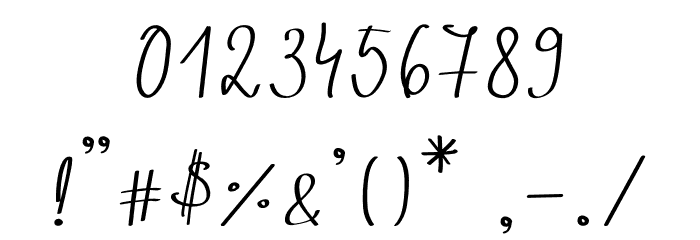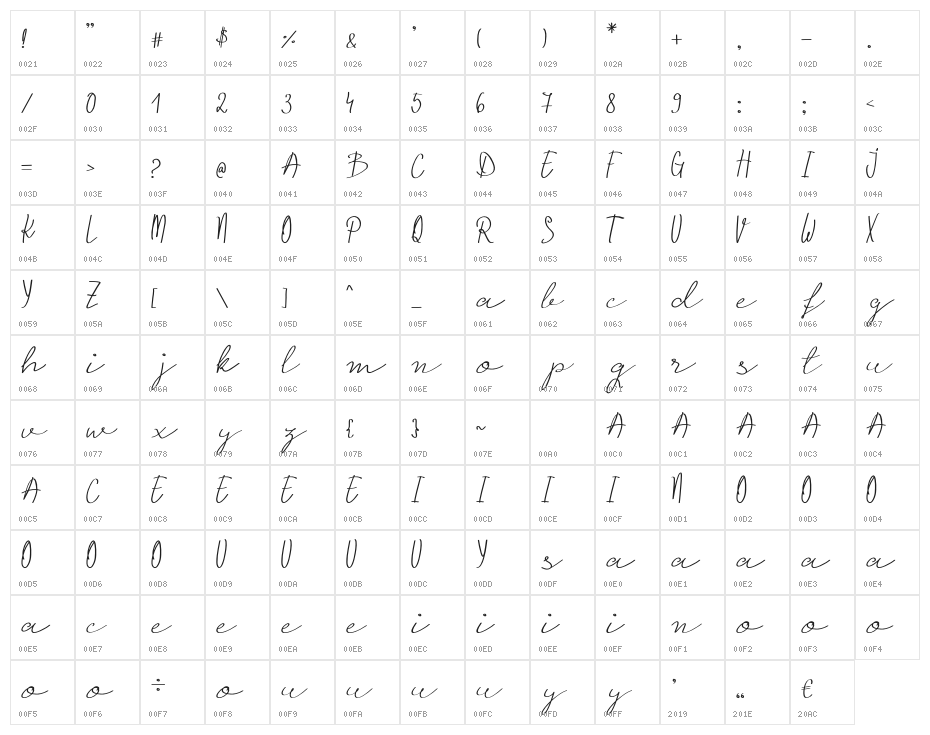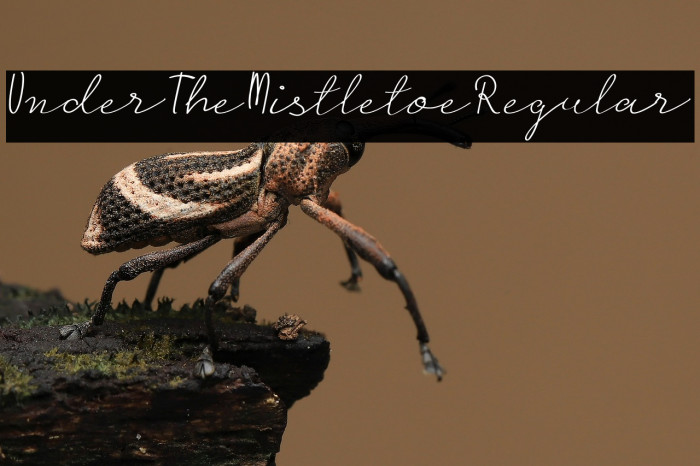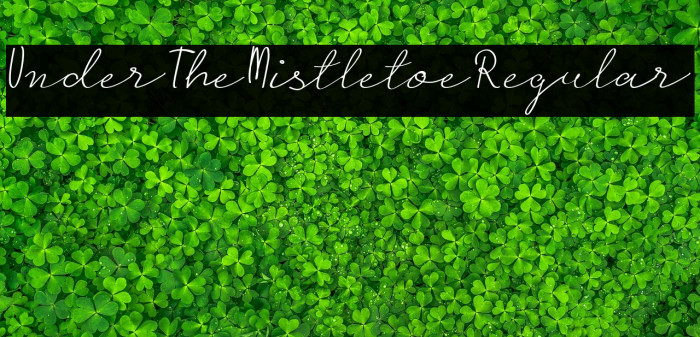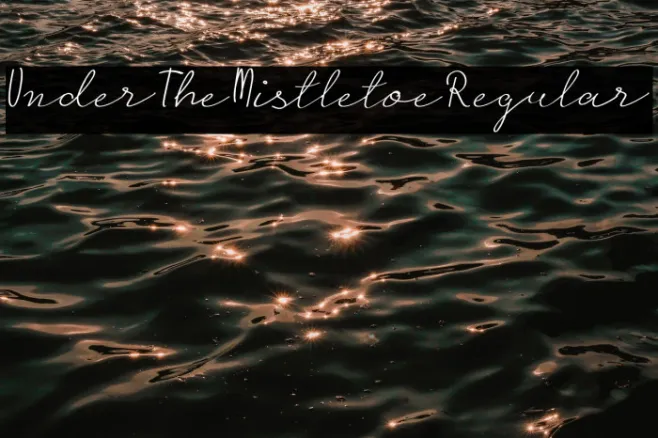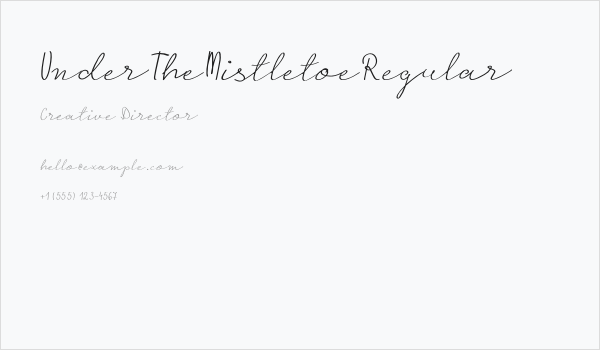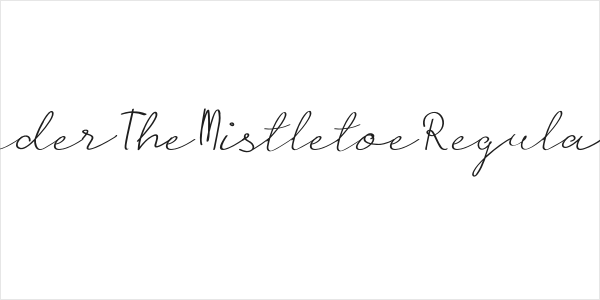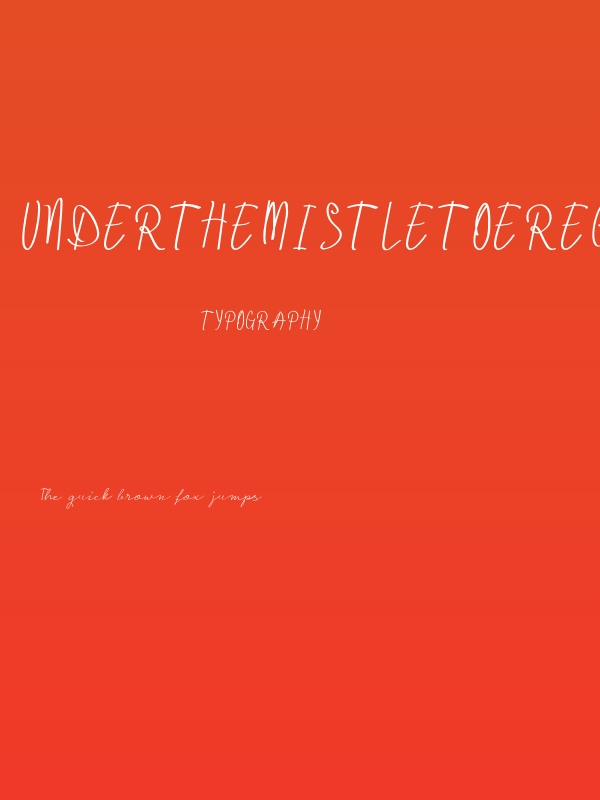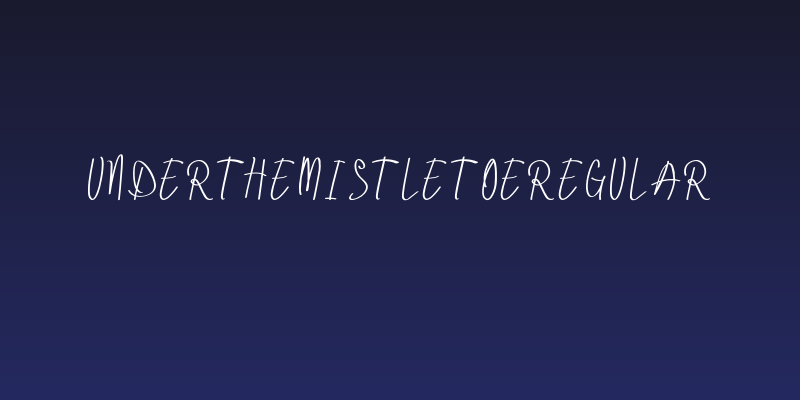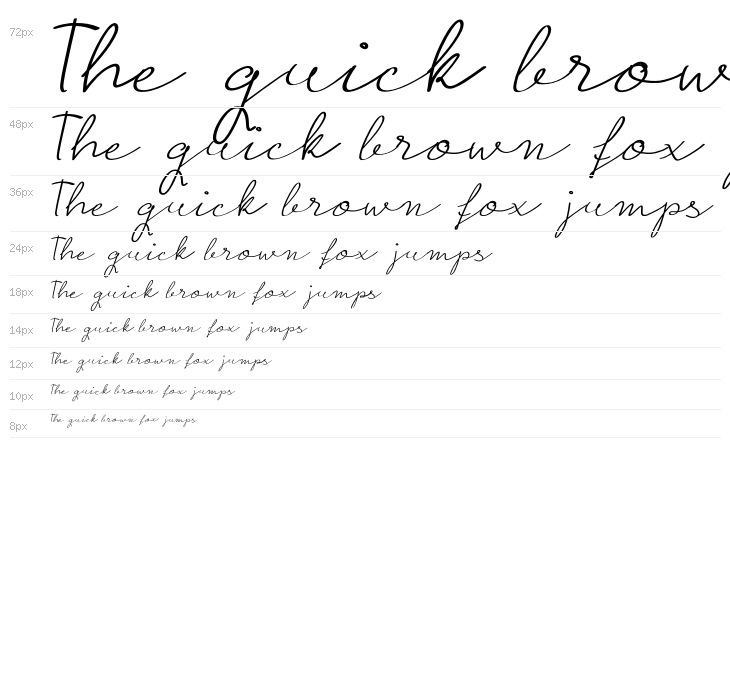
UnderTheMistletoeRegular Font
UnderTheMistletoeRegular Description
This font exudes a whimsical and playful charm, characterized by its handwritten style that mimics the fluidity of cursive writing. The uppercase letters are tall and slightly narrow, with a playful bounce that adds a sense of movement and energy. The lowercase letters maintain a consistent flow, with smooth, connected strokes that enhance the handwritten feel. Numbers and special characters are crafted with the same lively spirit, ensuring a cohesive look across all text. The font's overall appearance is both elegant and approachable, making it suitable for a variety of creative projects.
| Proposed Projects | Ideal for greeting cards, invitations, personal branding, and creative projects that require a personal touch. |